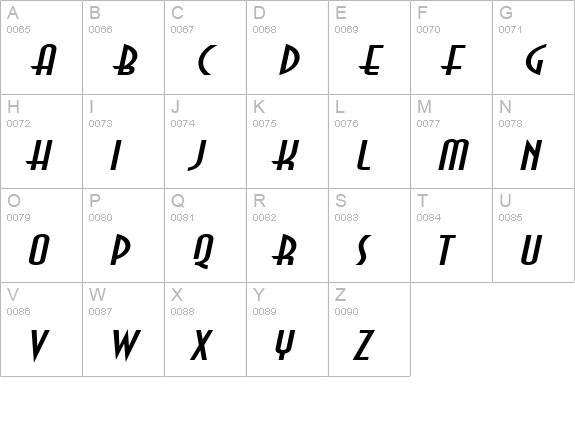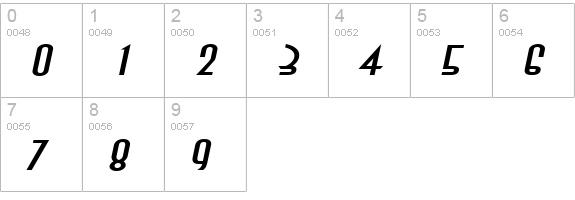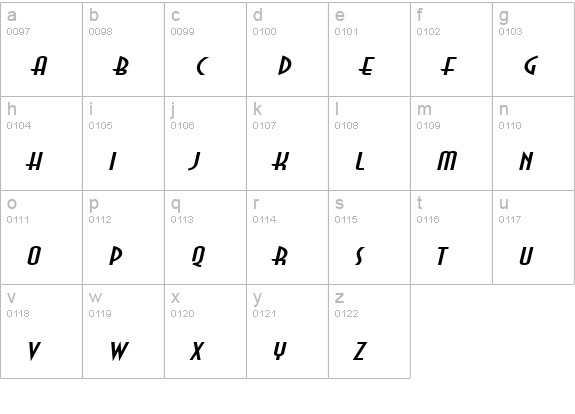
Asia Extended Italic is a distinctive, extended-width, italic variant in the Asia typeface family \xE2\x80\x94 well suited to design and typography projects.
Asia Extended Italic is a modern and stylish font that adds a touch of elegance to any design project. Its sleek and sophisticated appearance makes it perfect for branding, advertising, and editorial purposes. The italic style gives a dynamic and flowing look to the text, making it stand out and grab the reader's attention. This font is not only visually appealing but also highly versatile, suitable for a wide range of applications. Whether you are designing a logo, creating a poster, or working on a website, Asia Extended Italic will enhance your project with its unique flair. Best of all, Asia Extended Italic is available for free download at FontsMarket.com. This means you can easily access this beautiful font and use it in your projects without any additional cost. Don't miss out on the opportunity to elevate your designs with Asia Extended Italic - download it today and let your creativity shine!